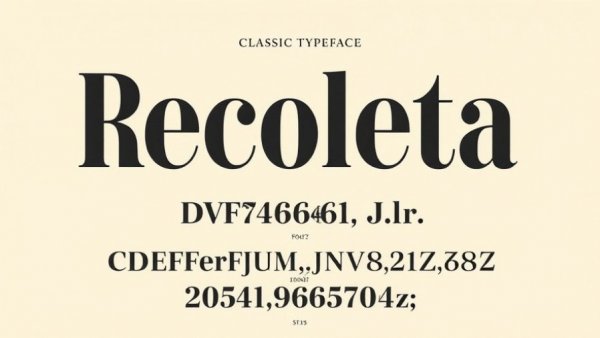
Uncovering the Revivalist Wave of Lost Typefaces: A Design Revolution
Elegant typeface poster for lost typefaces revival
Resurrecting Typefaces: A Hidden Revolution in Typography
In the fast-paced digital world, it seems like the quest for the next trendy typeface is never-ending. However, beneath the surface, there's a remarkable movement quietly reshaping our fonts. Graphic designers and independent foundries are diving deep into the archives, unearthing lost typefaces from the past to bring them back into the spotlight. This movement, more than mere nostalgia, serves as a form of cultural preservation, breathing new life into designs that once shaped visual communication.
The Breakthrough: Recoleta's Journey
One prime example of this revivalist spirit can be found in the transformation of the vintage Cooper Light type into the contemporary Recoleta. Designed by Oswald Bruce Cooper in the 1920s, the original Cooper Black typeface became a hallmark of advertising and pop culture, yet Cooper Light never reached the same commercial heights. It faded into obscurity, becoming simply an afterthought in the realm of typography.
Latinotype, a Chilean foundry, perceived the potential of Cooper Light’s warm forms. They launched an ambitious endeavor to revive and expand it into Recoleta, carefully resurrecting its charm while adapting it to modern design needs.
From Research to Revival: The Recoleta Process
The success of Recoleta lies in the meticulous research and digitization process carried out by designers Daniel Hernández and Luciano Vergara. They sought high-quality original specimens, steering clear of the distorted versions that had plagued the type for years. Understanding the usage context of Cooper Light allowed them to make informed decisions about how to adapt it.
The journey didn’t stop there. The original Cooper Light was largely limited to a single weight, but the Latinotype team expanded it into a full-fledged family of typefaces. They created additional weights and styles, fine-tuning details to ensure every character retained its character while maintaining legibility on digital platforms.
Designing for Today: The Modernization of Recoleta
Recoleta also caters to the needs of current branding efforts. The team enhanced its functionality by introducing OpenType features, allowing designers flexibility in creating unique typographic solutions. The revival balanced between honoring its roots and amplifying usability; hence, Recoleta has found its place in significant branding projects, including campaigns for influential names like Spotify.
Ethics in Revival: A Complex Landscape
The revival of typefaces often raises discussions about ethics in design. A cornerstone of this movement involves navigating the fine line between stewardship and appropriation. For instance, some projects, like the Warsaw Poster revival, involve meaningful connections to cultural origins, where the designer honors the influences while ensuring the revival is recognized as a new interpretation rather than a mere copy.
Understanding the historical context of these typefaces enriches the revival process. It empowers graphic designers to appreciate and embed the culture behind their work, ultimately leading to a more thoughtful application of design in contemporary settings.
The Broader Impacts: Cultural Preservation through Typography
Beyond serving as a tool for designers, these revived typefaces play an essential role in preserving cultural and aesthetic heritages. Each revival connects the present with moments from the past, allowing contemporary artists to draw on the emotional weight of historical design while crafting new narratives.
The importance of resurrecting lost typefaces extends beyond mere aesthetics; it fosters continuity within the design community and strengthens the collective history shared across generations of designers. The legacy of forgotten typefaces can inspire new creations and inform modern design practices.
The Call to Action: Join the Revivalist Movement
As we reflect on the passion propelling these design projects, it's an opportune moment for aspiring graphic designers to delve into their local design culture. Whether you’re seeking a local graphic designer near you or thinking of revamping your brand identity, this revivalist wave opens doors to a wealth of creative opportunities. Explore local graphic design services that honor the roots of typography through custom projects that speak to you. Let's work together to amplify our collective voice in the design world while keeping the rich history of typography alive.